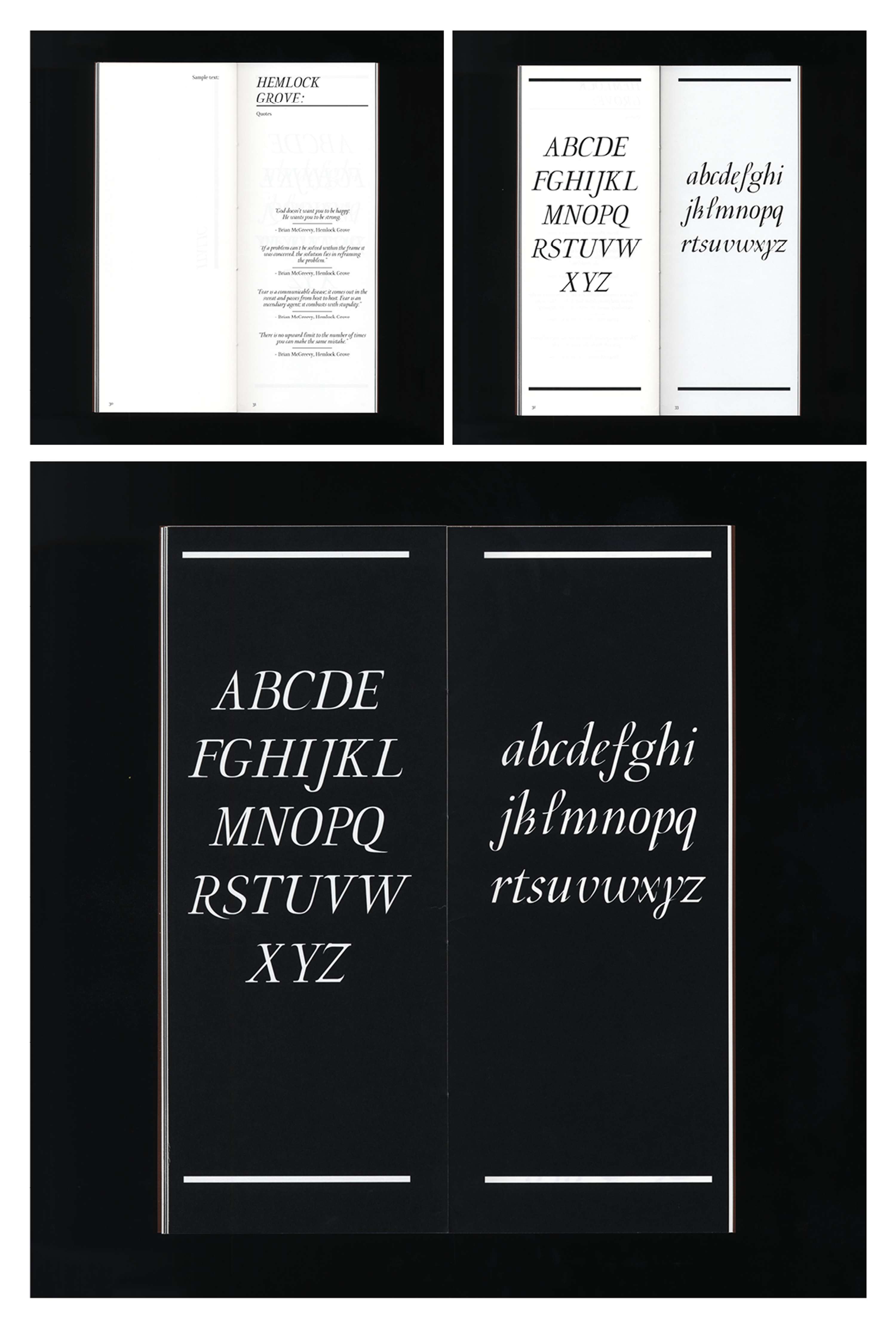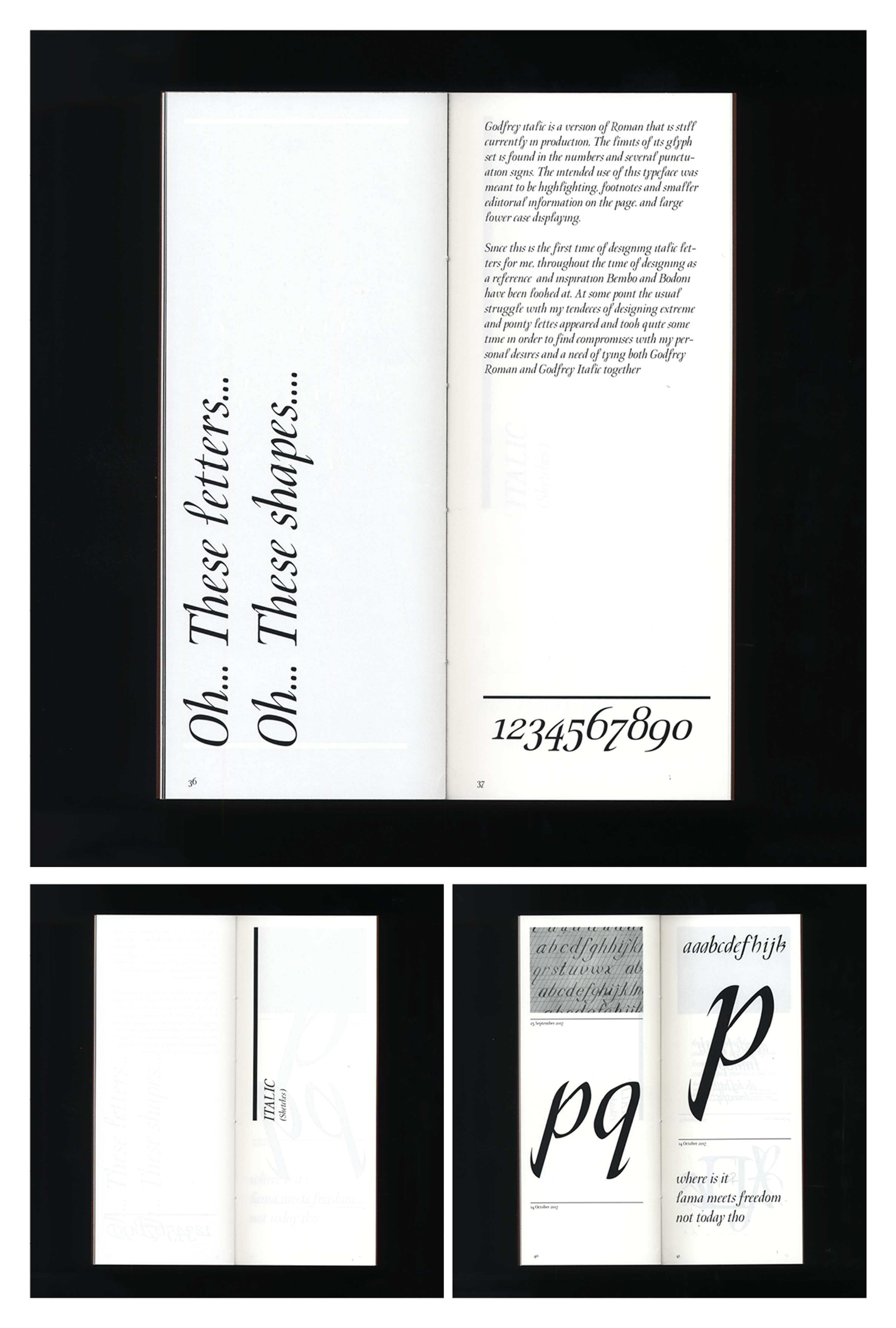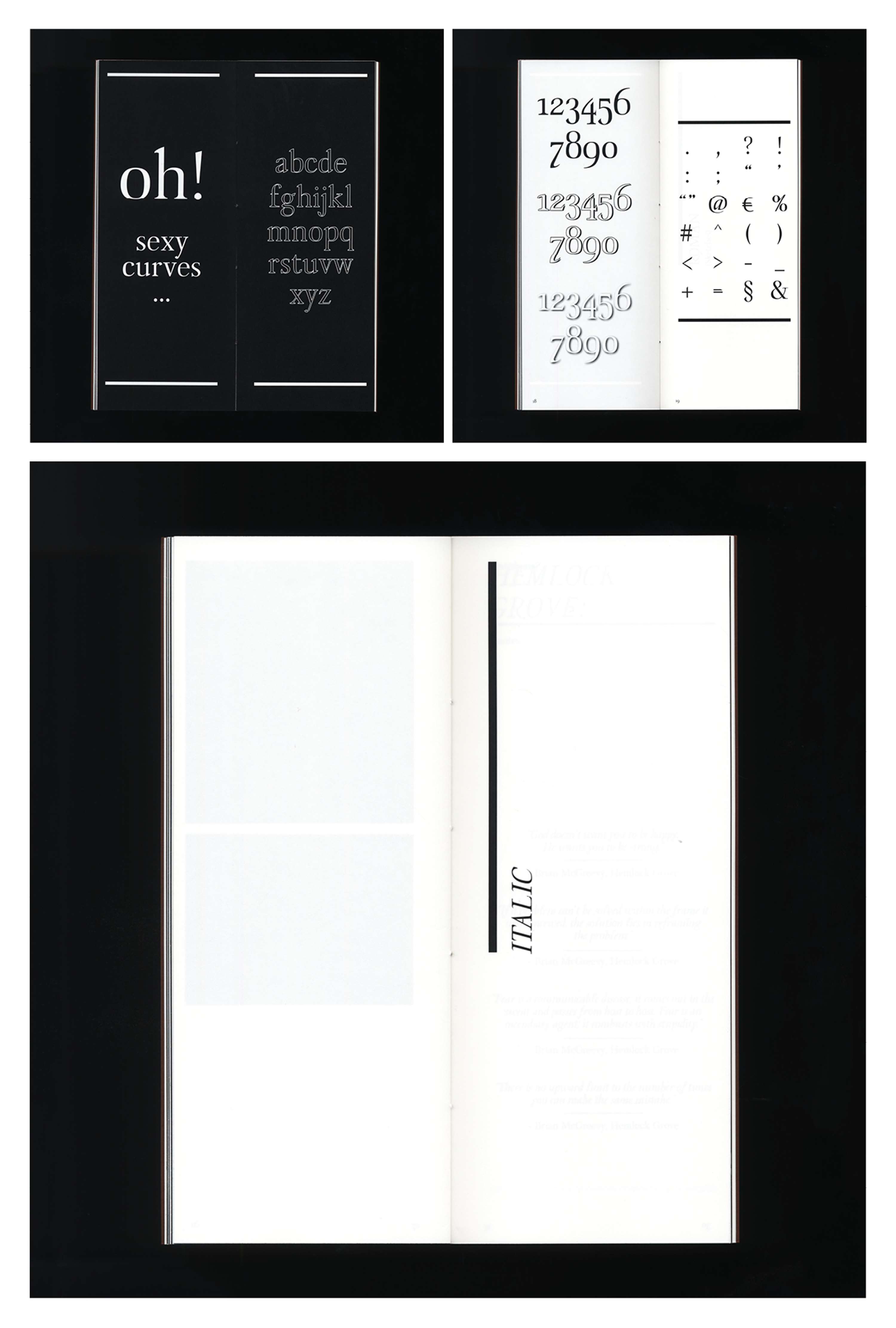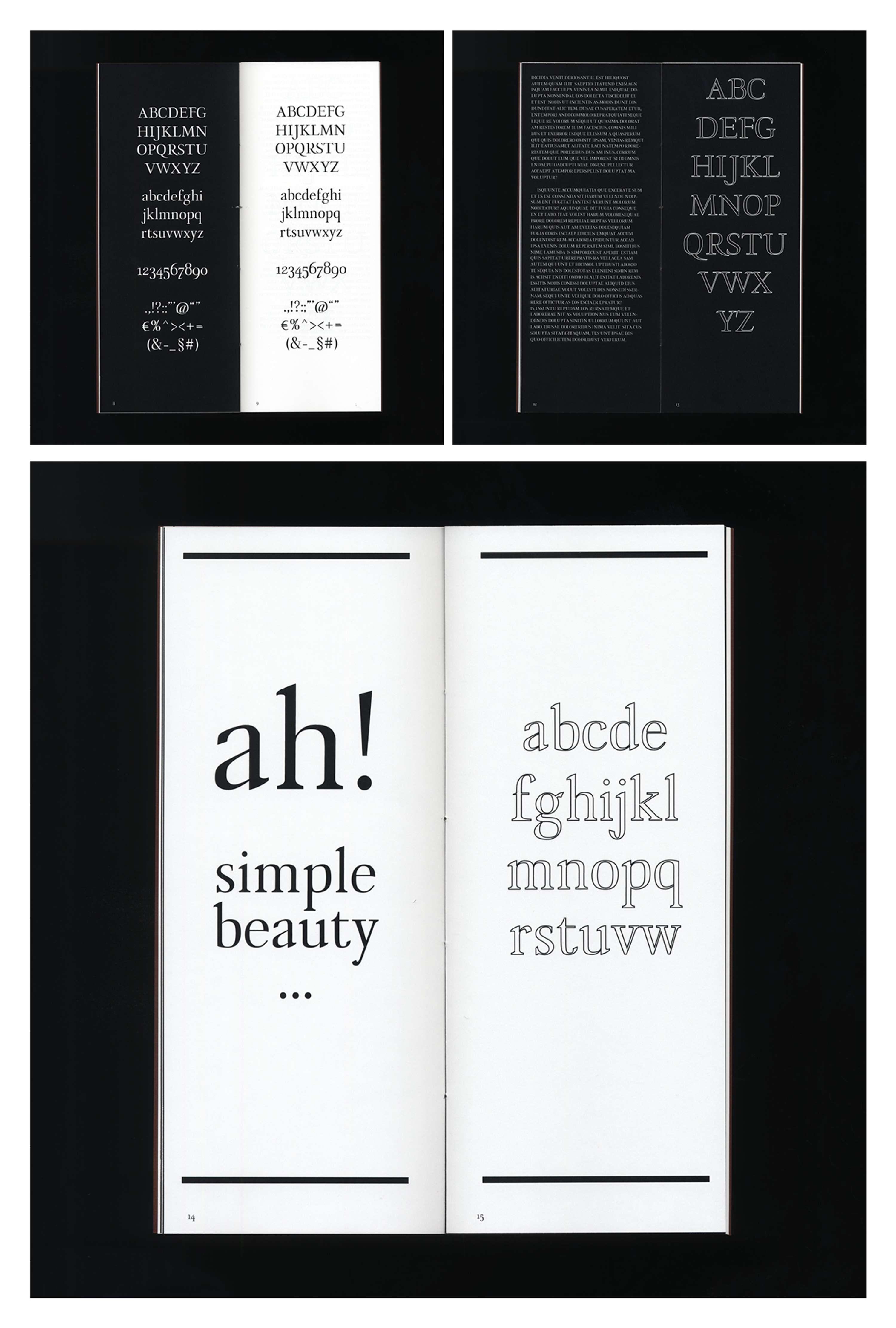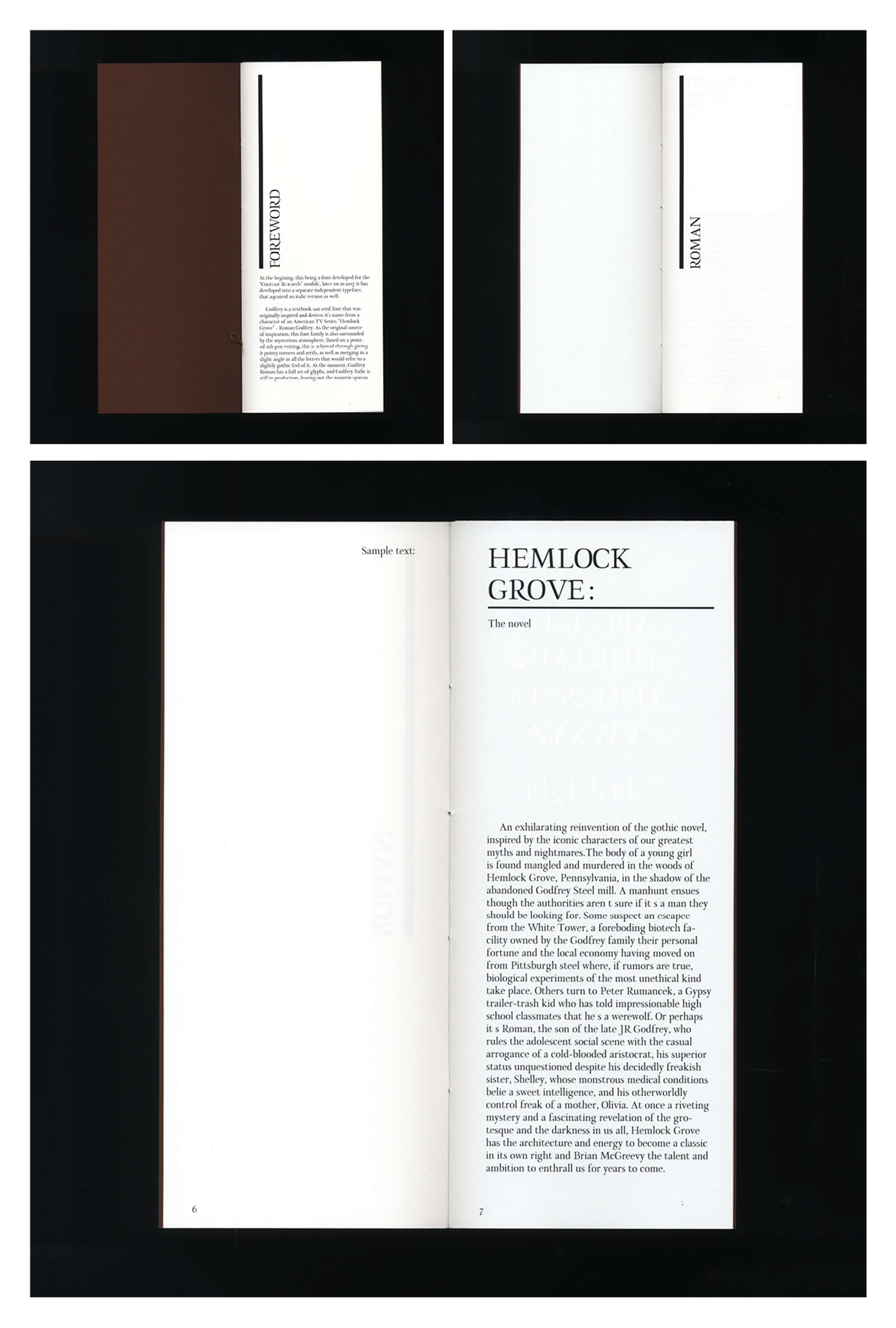
Godfrey Typeface
• Mariam Darchiashvili
Godfrey is a textbook san serif font that was originally inspired and derives its' name from a character of an American TV Series “Hemlock Grove” - Roman Godfrey. As the original source of inspiration, this font family is also surrounded by the mysterious atmosphere. Based on a pointed-nib pen writing, this is achieved through giving it pointy corners and serifs, as well as merging a slight angle in all the letters that would refer to a subtle gothic feel of it. At the moment, Godfrey Roman has a full set of glyphs, and Godfrey Italic is still in production, leaving out the numeric system.
Godfrey Typeface by Mariam Darchiashvili